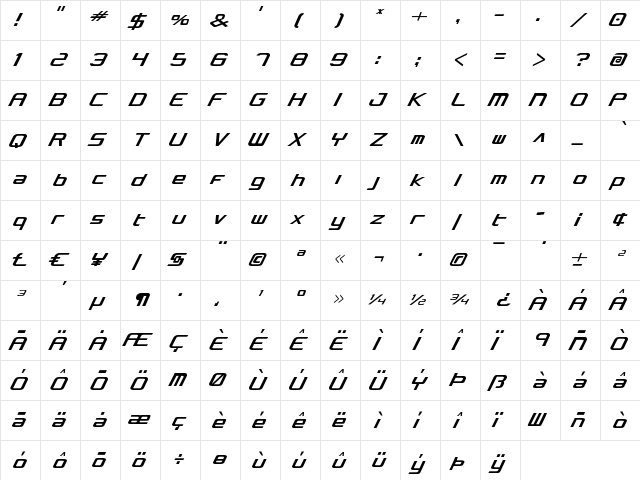
Concielian Classic Condensed Condensed
Design Context for Concielian Classic Condensed Typeface
Concielian Classic Condensed has the warm character of retro typography — evoking diners, record sleeves, and the golden age of print advertising.
Font Pairing: Combine Concielian Classic Condensed with a simple slab or neutral sans — period-accurate companions reinforce the vintage feel without competing for attention.
Pro Tip: Use Concielian Classic Condensed for headlines and pull quotes rather than body copy — its personality is best appreciated in short, focused bursts.